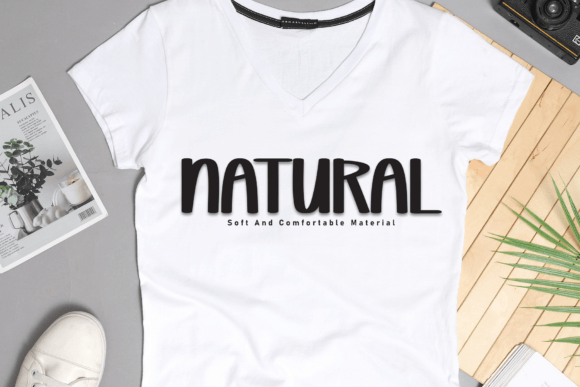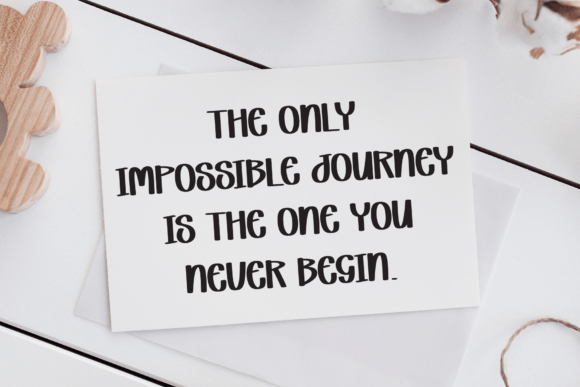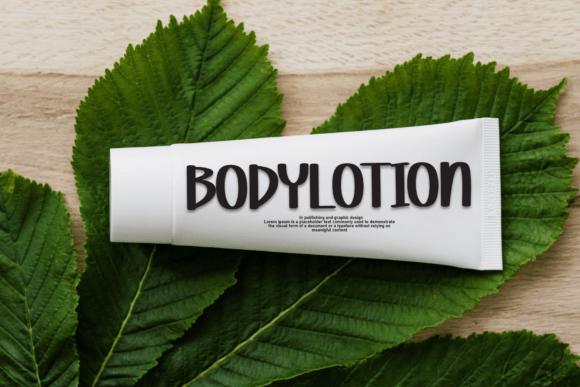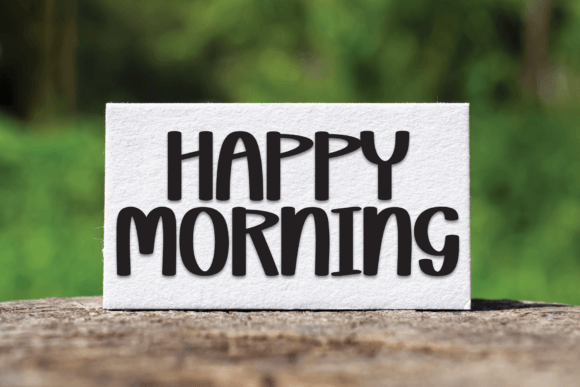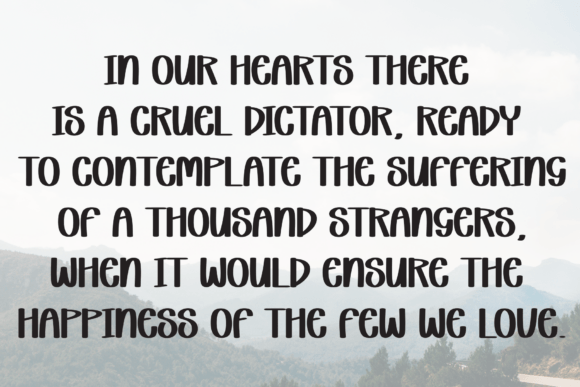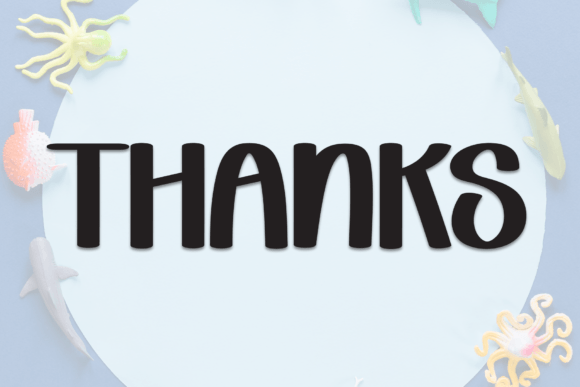
Adding a Fin-tastic Touch to Your Designs
Have you ever been brainstorming a creative project and suddenly, a character or theme pops into your mind? It happened to us when we stumbled upon the catchy tune of “Baby Shark.” The endearing melody and its adorable characters sparked an idea – to bring that same charm to the world of typography. And thus, the ‘Baby Shark Font’ was born.
This delightful, handwritten font is perfect for injecting a dash of playfulness into your designs. Its whimsical character reflects an effortless blend of simplicity and character, making it an ideal choice for wedding invitations, greeting cards, and other creative projects. As a designer, you’ll appreciate the versatility of the ‘Baby Shark Font’ and the unique touch it adds to your work.
Baby Shark Font Key Features
- Unique Characteristics: The Baby Shark Font features a bold, playful, and child-friendly design, making it ideal for children’s products, educational materials, and entertainment branding.
Baby Shark Font Review
The Baby Shark Font is a fun, playful font that’s sure to grab attention. ✨ It’s perfect for kids’ content, nursery decorations, or any project that needs a dash of whimsy. The font’s design is based on the popular children’s song, and it’s instantly recognizable.
- Instantly recognizable: The font’s design is based on the popular song, making it easy to identify.
- Fun and playful: The font is perfect for kids’ content or any project that needs a dash of whimsy.
- Overuse: The font’s popularity may make it feel overused, especially in certain contexts.
- Limited versatility: The font is best suited for kids’ content or projects that need a playful feel.
- Not ideal for professional use: The font’s casual design may not be suitable for formal or professional projects.
Overall, the Baby Shark Font is a fun and playful addition to any project. While it may not be ideal for every use case, it’s perfect for kids’ content or any project that needs a dash of whimsy. ⚠️ Just be mindful of the potential limitations and overuse.
The “Baby Shark Font” is a fun and playful font that is perfect for:
- Kids’ party invitations and decorations
- Children’s book covers and illustrations
- Playful social media graphics and ads
- Any project that requires a fun and energetic vibe